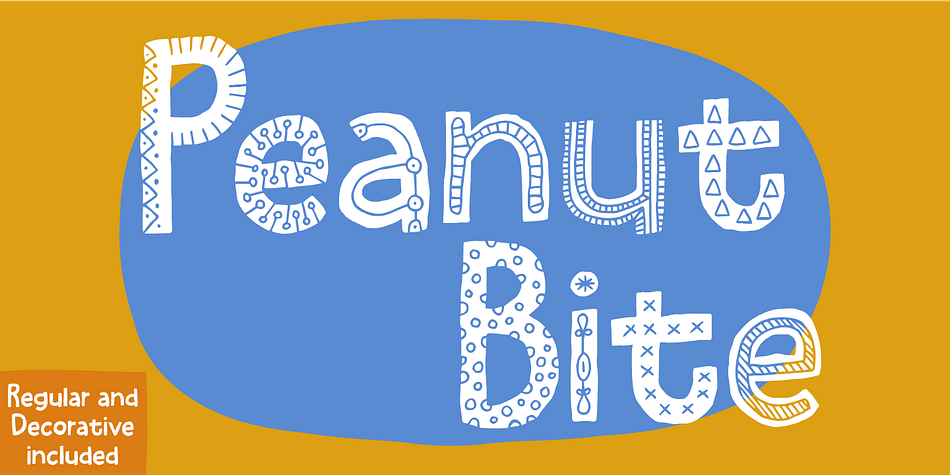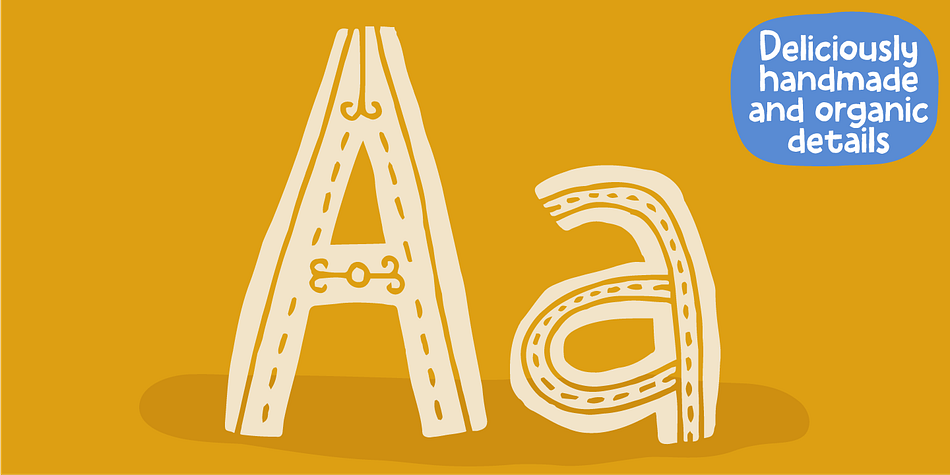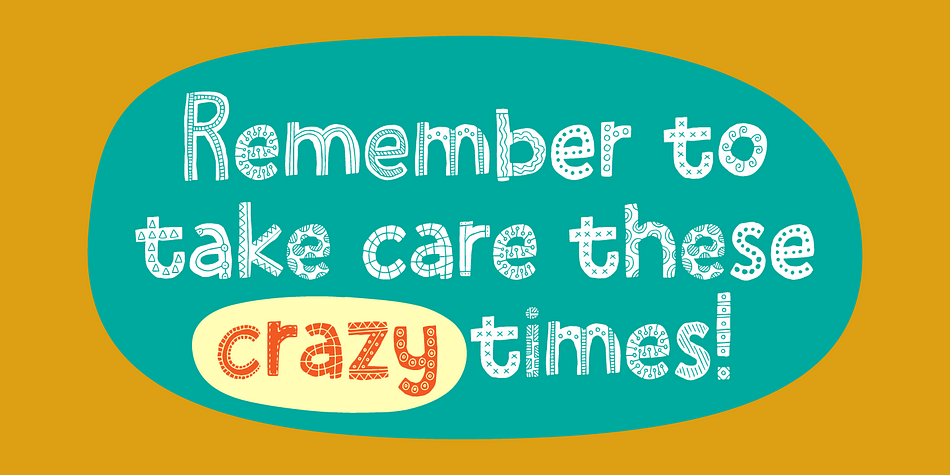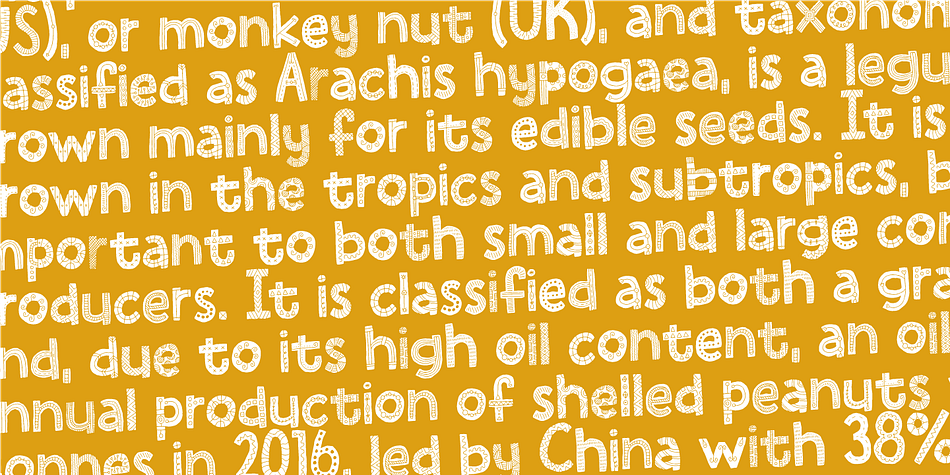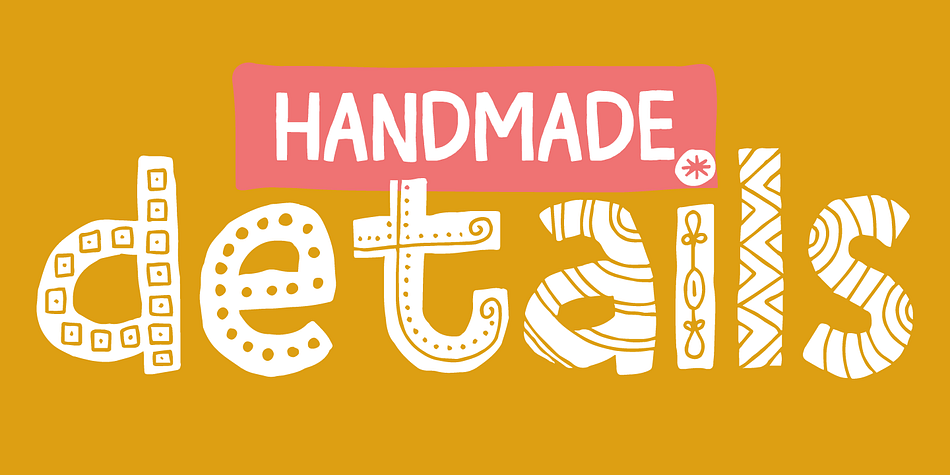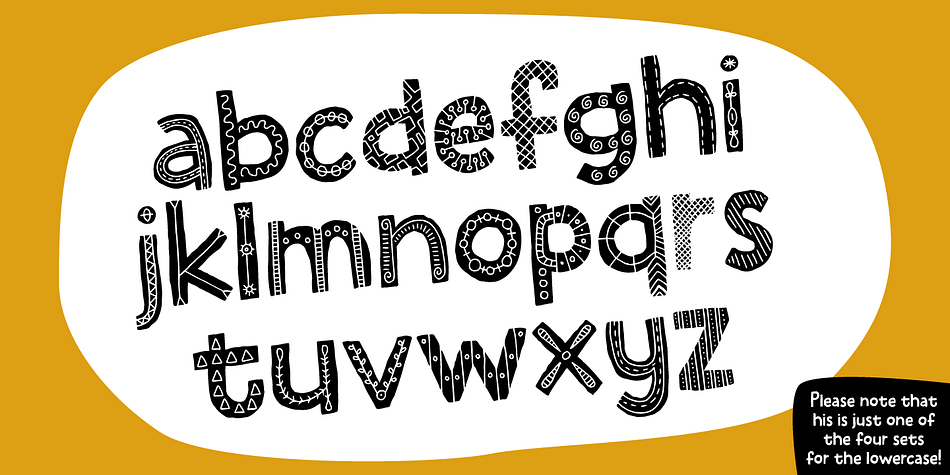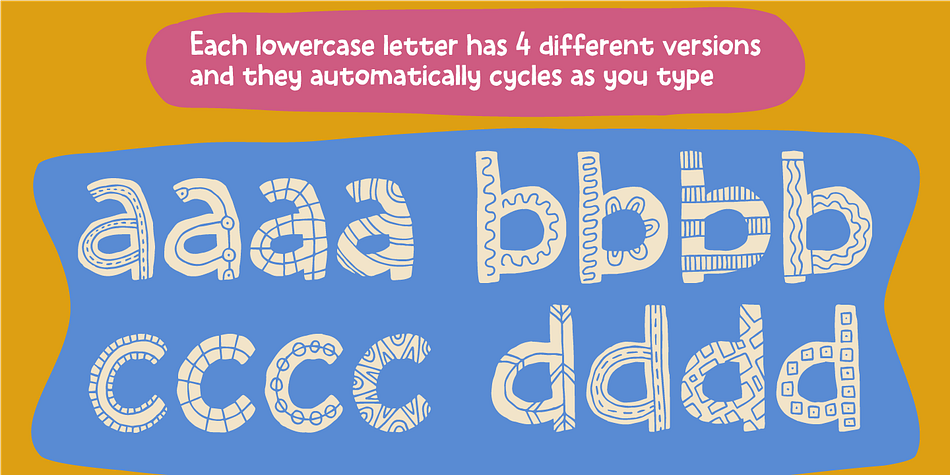
Designed by Jakob Fischer, Peanut Bite is a hand drawn font family. This typeface has two styles and was published by Pizzadude.dk.
A highly decorative and playful font, inspired doodle drawings. It has this Scandinavian vibe in a funny and lively way. If you don’t fancy the decorative thingies, you can use the Regular version, which is a classic cartoonish font. The Decorative version has 4 different versions of each lowercase letter